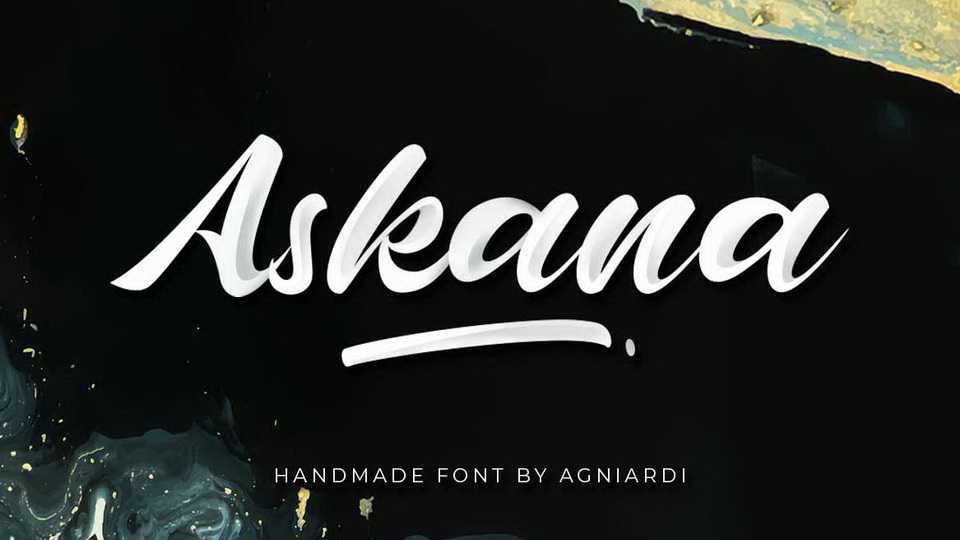
Download Askana font, a modern bold hand lettered script with smooth curves. Askana is great for branding, logo design, lettering, clothing, poster, magazine and other design project.
Designer: Agniardi